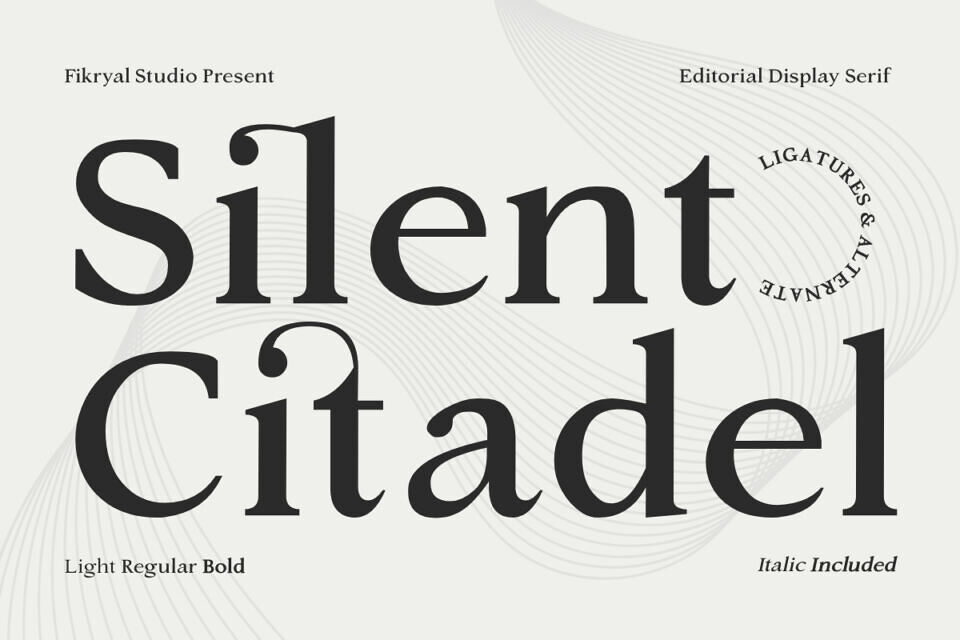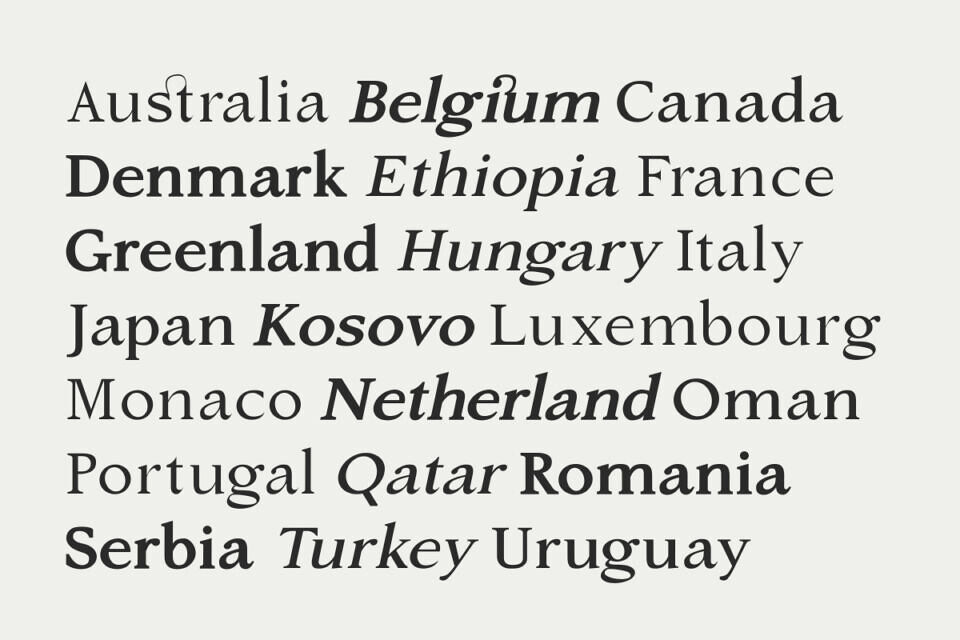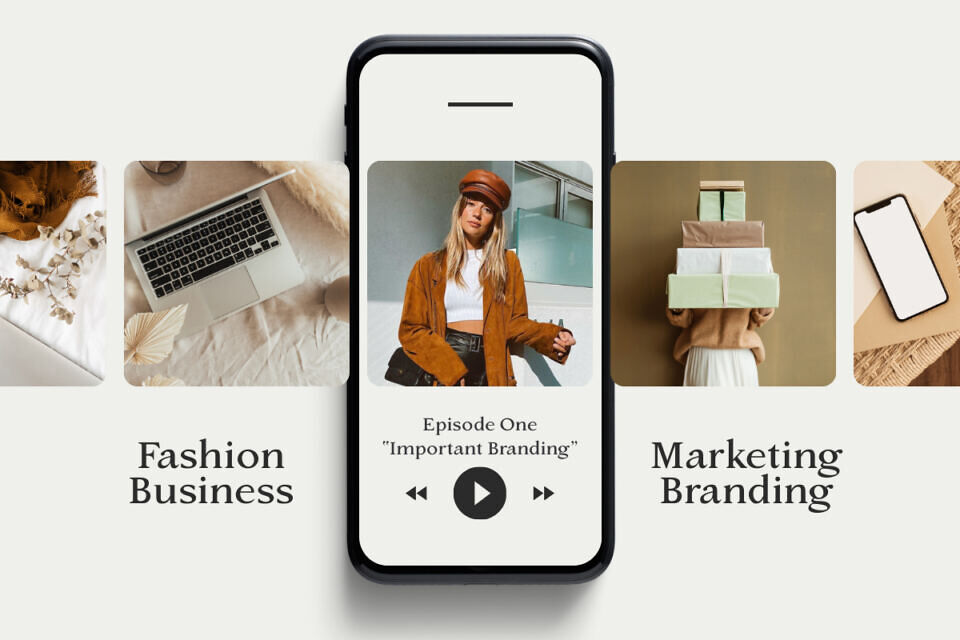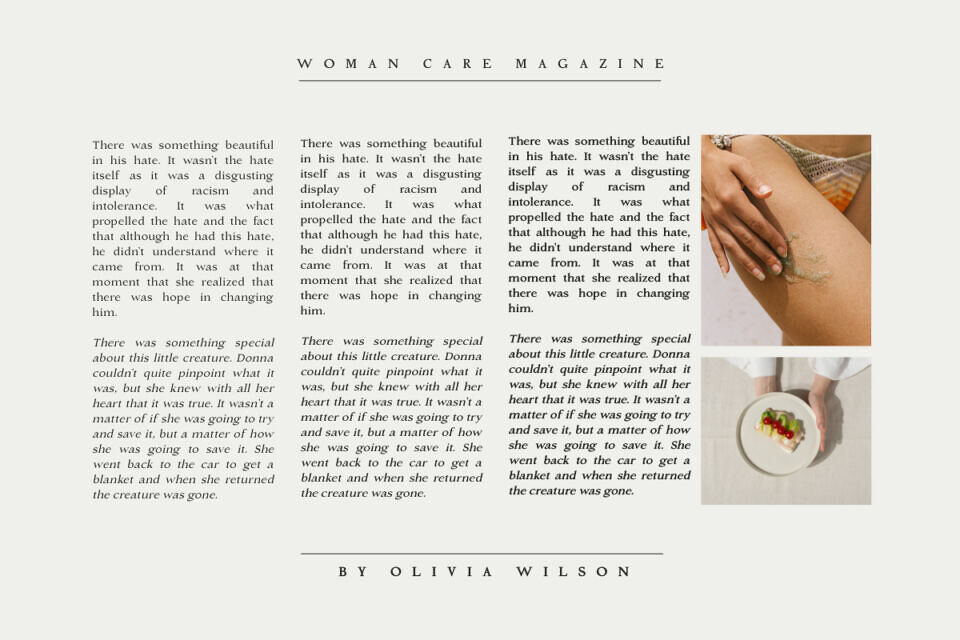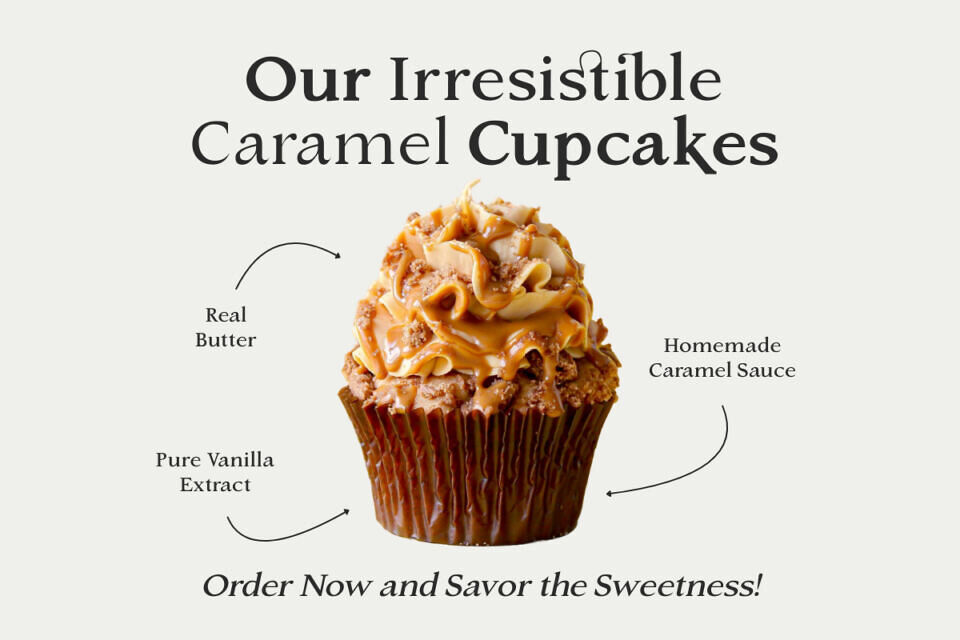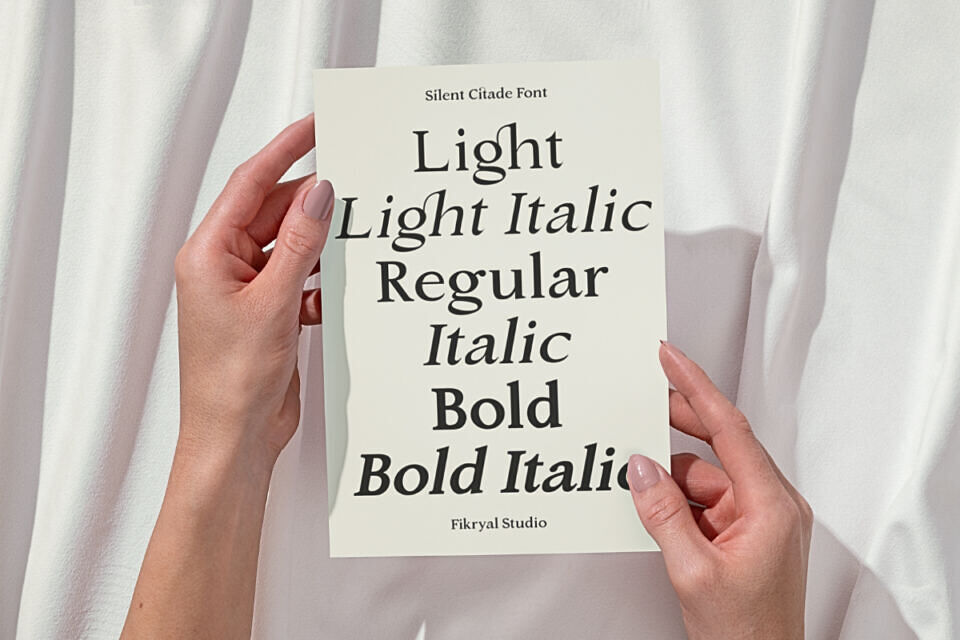
Silent Citadel Font
Silent Citadel is a refined editorial display serif designed to evoke authority, elegance, and timeless sophistication. Inspired by the quiet strength of classical architecture and the grandeur of historic fortresses, this typeface blends sharp serifs, graceful curves, and confident proportions into a commanding yet polished visual voice.
Silent Citadel is designed for bold, eye-catching typography, making it ideal for luxury brands, editorials, and high-end packaging. This versatile font family includes six styles, carefully balanced for visual cohesion. With ligatures and alternate lowercase letters, it offers a range of creative possibilities for custom typography and refined logos.